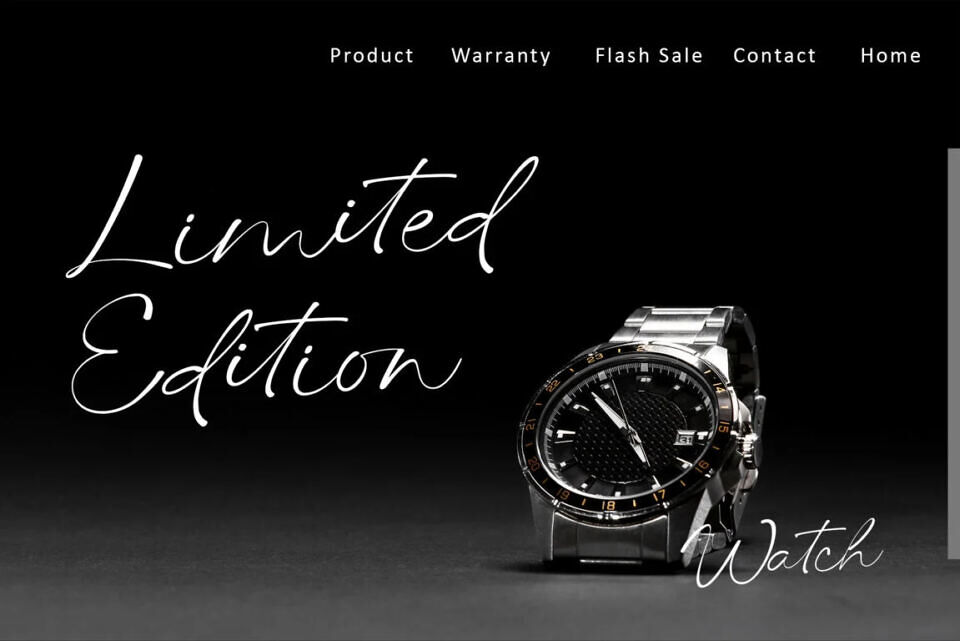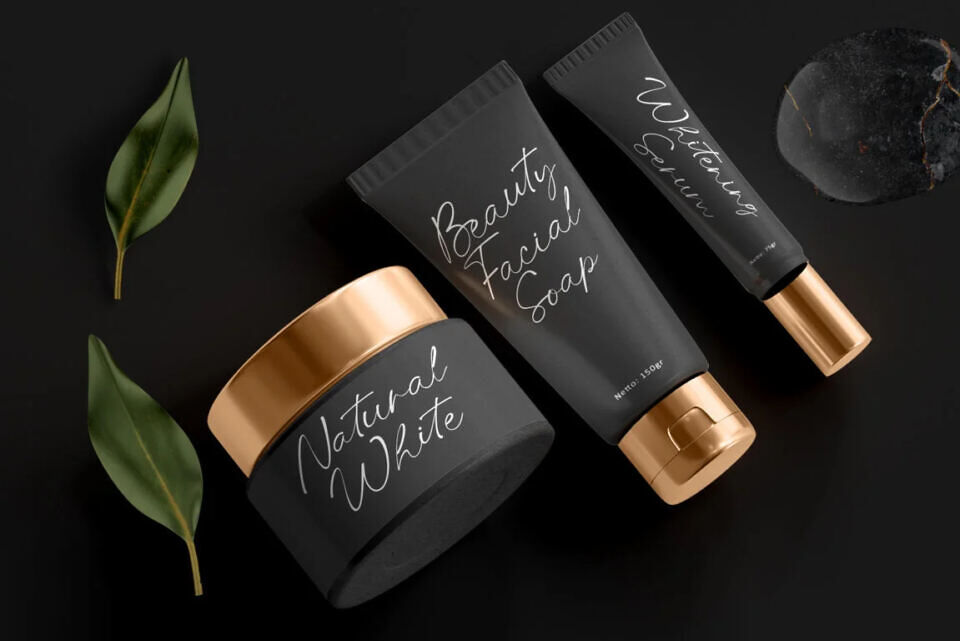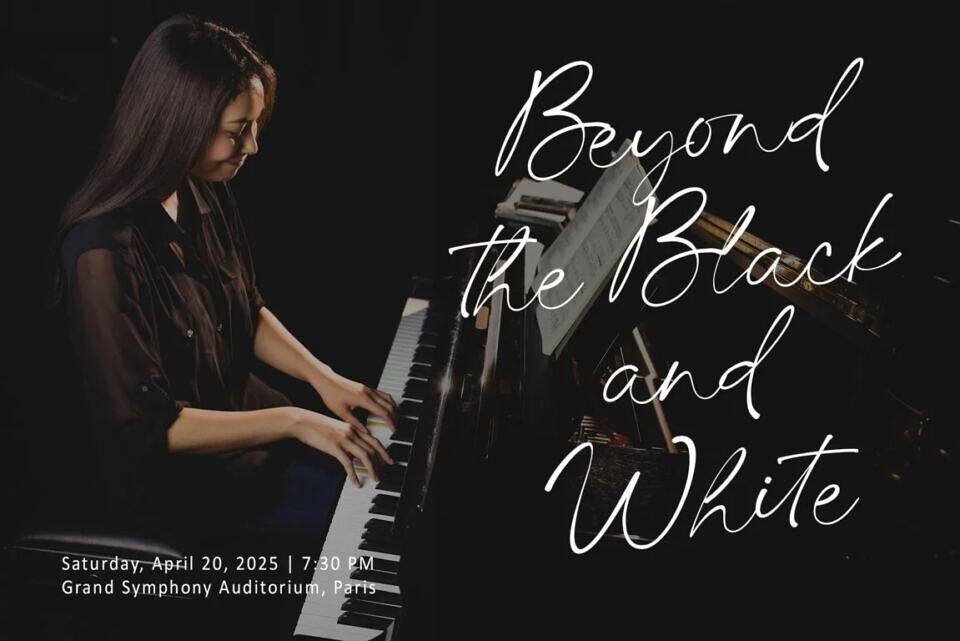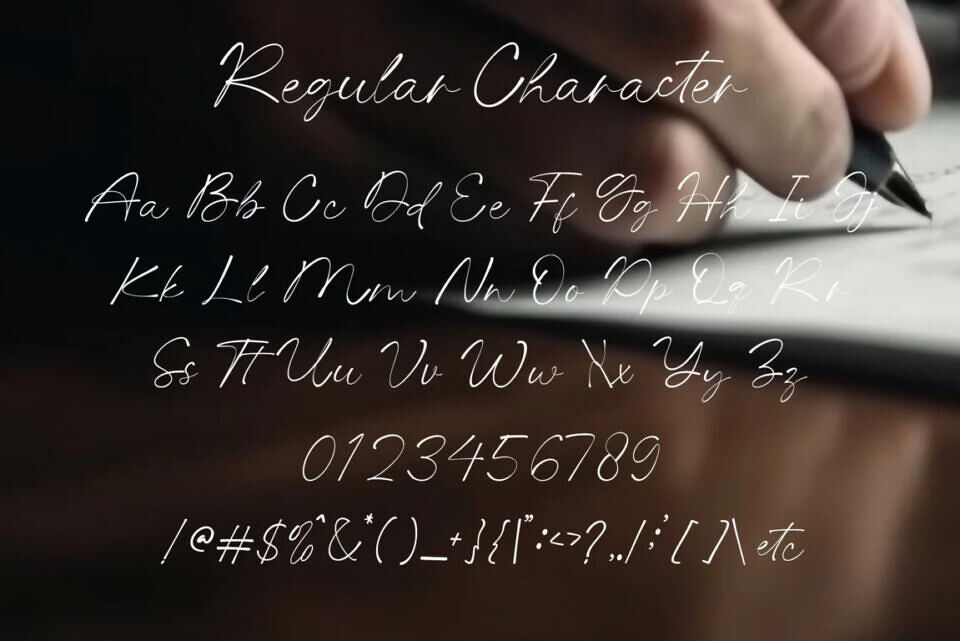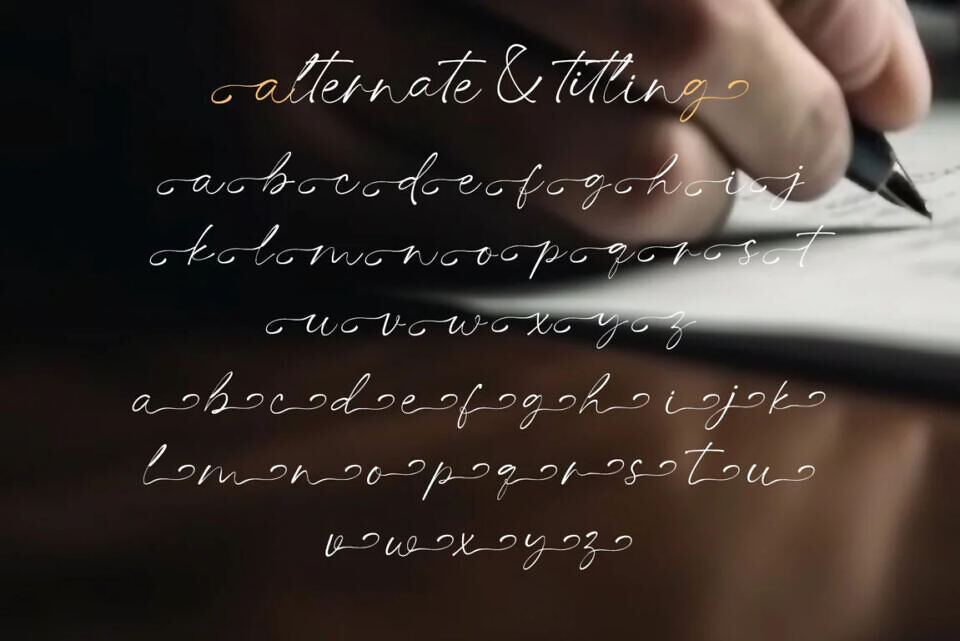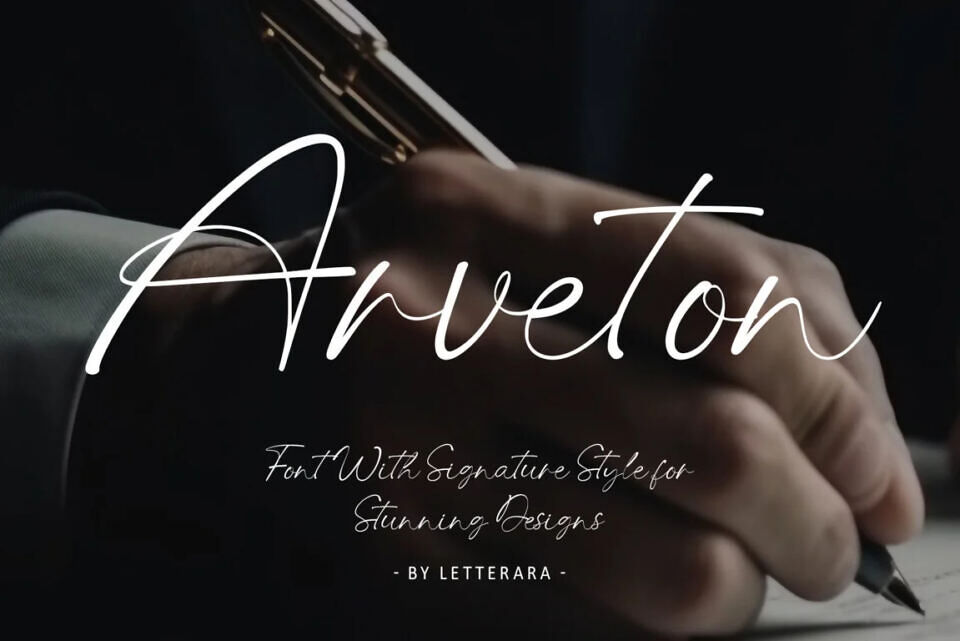
Arveton Font
Arveton is a sophisticated signature font that blends the fluid beauty of handwritten strokes with modern elegance, making it perfect for logos, branding, wedding invitations, and stylish packaging.
Designed to feel personal and expressive, each letter flows naturally like a real signature, adding a touch of authenticity and charm to your designs. With PUA encoding and a range of alternates,